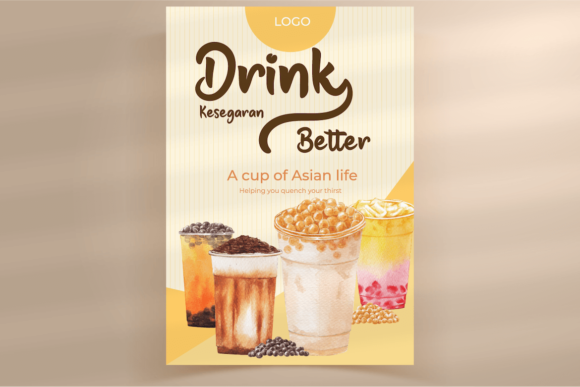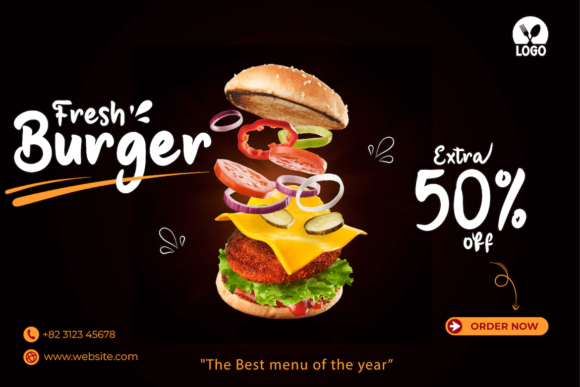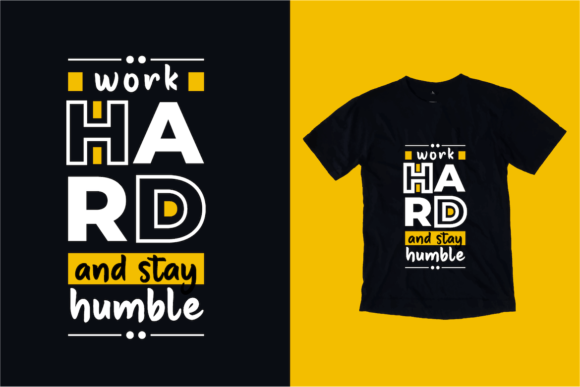
The Dotter Font: A Cool and Stylish Addition to Your Design Toolbox
I’ll never forget the time I was working on a project for a client who wanted a font that was both playful and sophisticated. I spent hours scouring the internet for the perfect font, but nothing seemed quite right. That was until I stumbled upon the Dotter font. With its cool, paint-brushed handwritten style, it was exactly what I needed to bring my design to life. In this article, I’ll share my experience with the Dotter font, including its features, how to use it, and some similar fonts you might enjoy.
An Honest Review of Dotter Font
So, what makes the Dotter font so special? Let’s take a closer look.
What I Love About Dotter Font
• Unique and eye-catching design: The Dotter font has a one-of-a-kind, paint-brushed look that’s sure to turn heads.
• Versatile: Whether you’re working on a digital design, crafting project, or presentation, the Dotter font is perfect for a variety of applications.
• 💫 Easy to read: Despite its playful design, the Dotter font is surprisingly easy to read, even in smaller sizes.
While the Dotter font is amazing, it’s not perfect. Here are a few things to keep in mind:
• 🤔 Limited use in formal designs: The Dotter font is playful and casual, so it may not be the best choice for formal designs or professional documents.
• ⚠️ May not work well in small sizes: While the font is generally easy to read, it may become a bit blurry or hard to read when used in very small sizes.
The Story Behind Dotter Font
The Dotter font was designed by a talented type designer who wanted to create a font that was both playful and elegant. Inspired by the imperfections of hand-painted signs, the designer created a font that was unique, expressive, and fun to use.
Font Name Dotter Font
Author Productype
Q: What is the Dotter font best used for?
A: The Dotter font is perfect for designs that require a playful, yet sophisticated look. It’s great for crafting, digital designing, presentations, and greeting cards.
Q: Is the Dotter font easy to read?
A: Yes, the Dotter font is surprisingly easy to read, even in smaller sizes. However, it’s best used in larger sizes or in designs where the font can be used as a headline or title.